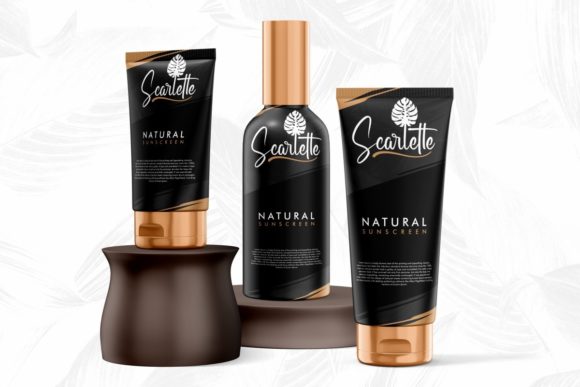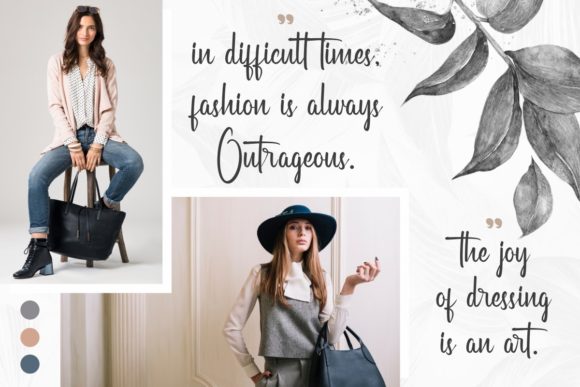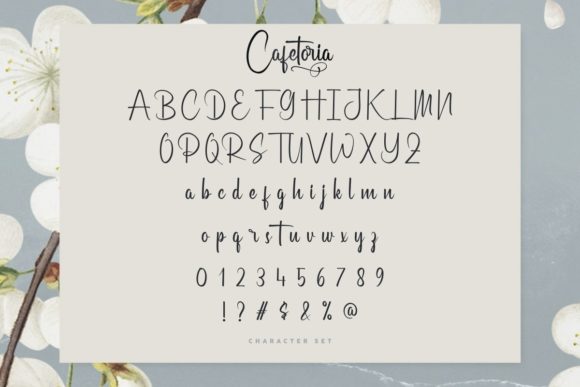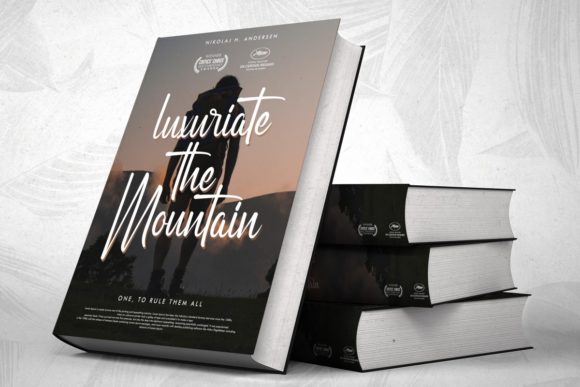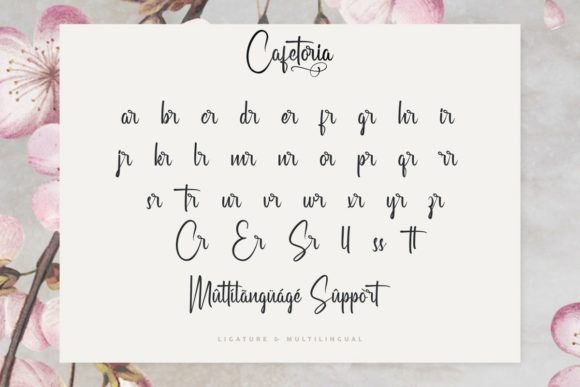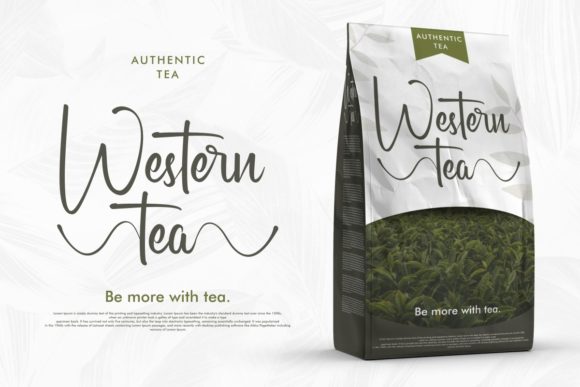
Discover the Art of Elegant Design with Cafetoria Font
As you sit down to create something beautiful, the world around you fades away, and all that’s left is the blank canvas waiting to be filled with your imagination. It’s in these moments that we designers come alive, pouring our hearts and souls into every stroke, every curve, and every detail. And that’s exactly where the Cafetoria Font comes in – to elevate your creations and leave a lasting impression.
This stunning handwritten font is more than just a typography tool; it’s a statement piece that adds a touch of sophistication and elegance to any project. With its PUA encoding, you can easily access all the glyphs and swashes, giving you the freedom to experiment and push the boundaries of design. Whether you’re a seasoned pro or just starting out, the Cafetoria Font is an invaluable addition to your creative arsenal.
Cafetoria Font Key Features
- Unique Characteristics: Cafetoria Font features a distinctive blend of modern and vintage elements, making it ideal for creating unique and eye-catching designs.
Cafetoria Font Review
As a designer, I was excited to dive into the world of Cafetoria Font and see what it has to offer. After some time spent exploring this font, I’m here to share my honest thoughts with you.
- Unique and quirky design: Cafetoria Font has a distinct, playful feel that sets it apart from more traditional font styles.
- Excellent for titles and headings: The font’s bold and whimsical nature makes it perfect for catching attention and adding a touch of personality to your designs.
- Works well for digital and print: Whether you’re designing for a website, social media, or a printed material, Cafetoria Font adapts nicely and looks great in various contexts.
- Limited legibility in small sizes: While the font looks great in larger sizes, it can become difficult to read when used in smaller sizes.
- Might not be suitable for formal designs: Due to its playful nature, Cafetoria Font might not be the best fit for more formal or professional projects.
Cafetoria Font is a fun and creative option that can add a unique touch to your designs. While it has some limitations, it’s perfect for projects where you want to stand out and have some fun with typography. Just be mindful of the size and context in which you’re using it, and you’ll be golden.
Cafetoria Font is commonly used in:
- Restaurant and cafe branding.
- Food and beverage packaging.
- Menu design.
- Food photography and styling.